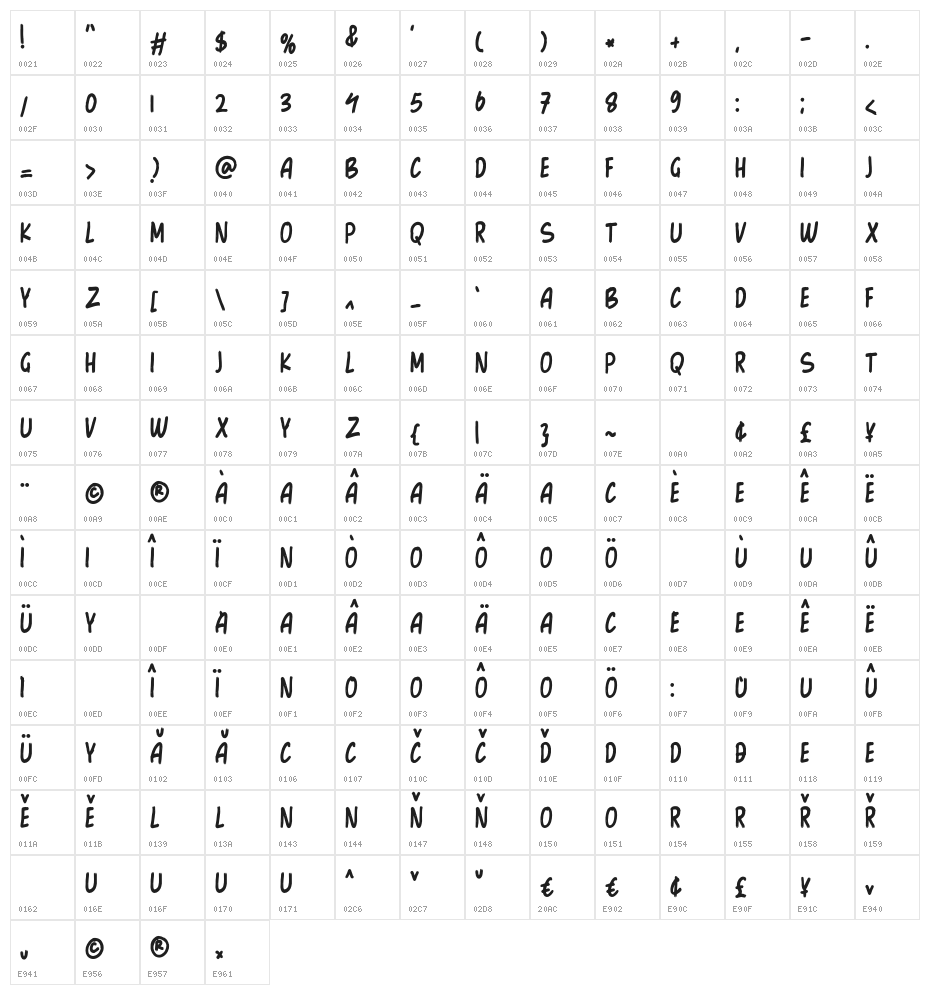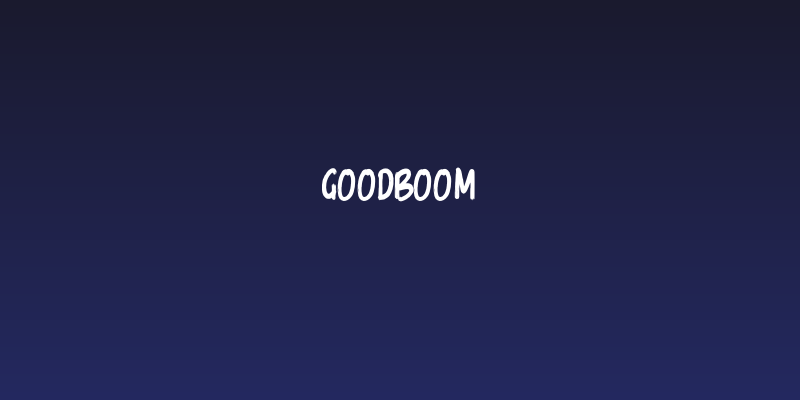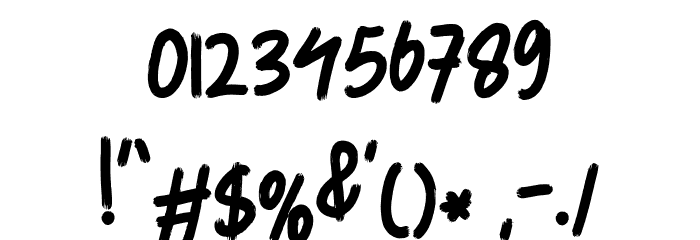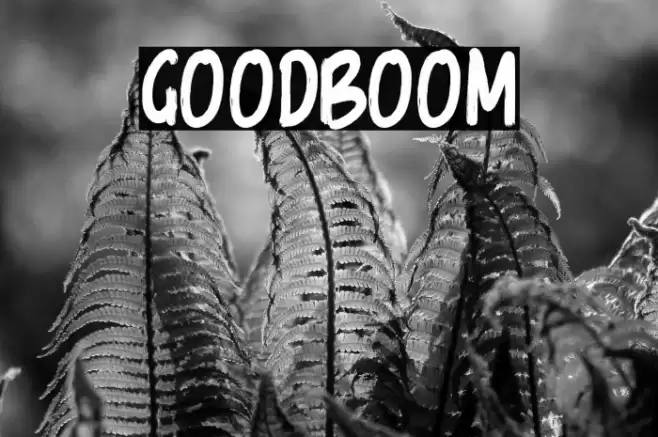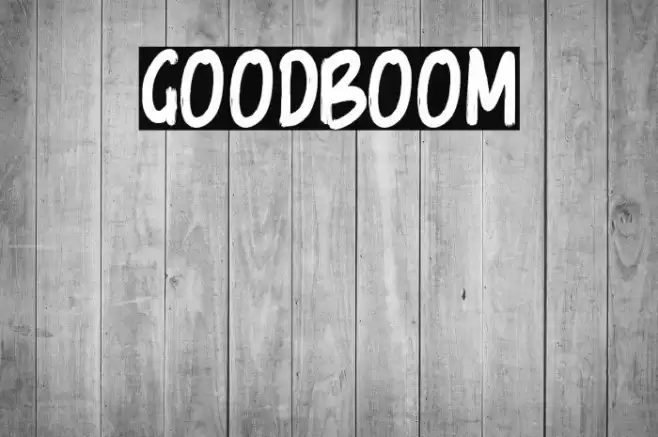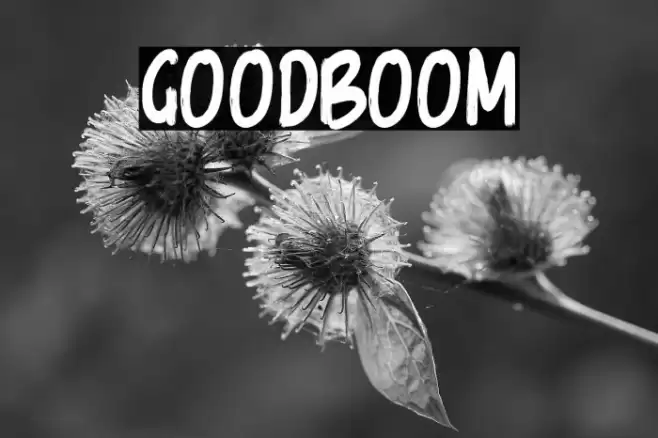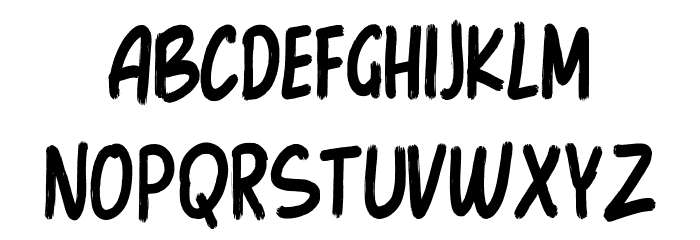
GoodBoom Font
GoodBoom Description
This font features a bold, brush-like appearance with a dynamic and energetic style. The strokes are thick and uneven, giving it a hand-painted look that adds a personal touch to any design. The uppercase and lowercase letters are consistent in their boldness, while the numbers and special characters maintain the same artistic flair. The overall aesthetic is both playful and assertive, making it ideal for designs that require a strong visual impact. The font's unique style is perfect for projects that aim to convey creativity and boldness.
| Overall Style | Modern, Artistic |
| Use Case | Headlines, Posters, Branding |
| Proposed Projects | Ideal for posters, branding, headlines, and any creative projects that require a strong visual impact. |